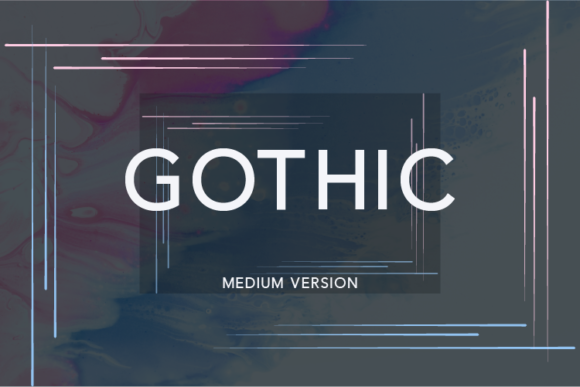
Gothic Medium Font: Elevate Your Design with Modern Elegance
In the realm of typography, the right font can make all the difference in the success of a design project. For those seeking a modern and elegant sans serif font, Gothic Medium is an exceptional choice. This versatile font is designed to pair well with script and handwritten fonts, making it perfect for a wide range of applications. In this article, we’ll explore the features and benefits of Gothic Medium Font, and how it can elevate your next design project.
What is Gothic Medium Font?
Gothic Medium Font is a contemporary sans serif font that exudes elegance and sophistication. Its clean lines, precise curves, and balanced proportions make it an excellent choice for designers seeking a modern aesthetic. The font’s medium weight ensures that it remains legible and readable, even at smaller sizes, making it suitable for both headings and body text.
Key Features of Gothic Medium Font
- Modern and Elegant Design: Gothic Medium Font boasts a sleek and refined design, perfect for creating a professional and sophisticated look.
- Sans Serif Style: The font’s sans serif style ensures that it remains clean and uncluttered, making it ideal for digital and print applications.
- Versatile Pairing Options: Gothic Medium Font pairs exceptionally well with script and handwritten fonts, allowing designers to create visually appealing and harmonious combinations.
- Legible and Readable: The font’s medium weight and balanced proportions ensure that it remains legible and readable, even at smaller sizes.
Benefits of Using Gothic Medium Font
Gothic Medium Font offers numerous benefits for designers and typographers. Some of the key advantages include:
Improved Readability
The font’s clear and balanced design ensures that text remains readable, even at smaller sizes. This makes it perfect for body text, as well as headings and titles.
Enhanced Aesthetic Appeal
Gothic Medium Font’s modern and elegant design adds a touch of sophistication to any design project. Its versatility allows it to be used in a wide range of applications, from luxury branding to digital marketing materials.
Streamlined Workflow
With Gothic Medium Font, designers can create professional-looking designs quickly and efficiently. The font’s legibility and readability reduce the need for manual adjustments, saving time and effort.
Using Gothic Medium Font in Your Design Projects
Gothic Medium Font is an incredibly versatile font that can be used in a wide range of design projects. Here are some ideas for incorporating the font into your work:
Headings and Titles
Use Gothic Medium Font to create bold and eye-catching headings and titles. Its medium weight ensures that it remains legible, even at larger sizes.
Body Text
The font’s legibility and readability make it perfect for smaller body text. Use Gothic Medium Font to create clean and professional-looking paragraphs and articles.
Branding and Logo Design
Gothic Medium Font is an excellent choice for branding and logo design. Its modern and elegant design ensures that your brand stands out, while its versatility allows it to be used across various platforms.
Pairing Gothic Medium Font with Script and Handwritten Fonts
One of the key benefits of Gothic Medium Font is its ability to pair well with script and handwritten fonts. Here are some tips for creating harmonious combinations:
Contrast and Balance
When pairing Gothic Medium Font with script or handwritten fonts, aim for contrast and balance. Use the sans serif font for headings or body text, and the script or handwritten font for accents or highlights.
Consider the Mood and Tone
When selecting a script or handwritten font to pair with Gothic Medium Font, consider the mood and tone of your design project. For example, a elegant script font may be suitable for a luxury brand, while a playful handwritten font may be better suited for a children’s product.
Gothic Medium Font is an exceptional choice for designers seeking a modern and elegant sans serif font. Its versatility, legibility, and readability make it perfect for a wide range of design projects, from headings and titles to body text and branding. By pairing Gothic Medium Font with script and handwritten fonts, designers can create visually appealing and harmonious combinations that elevate their designs.